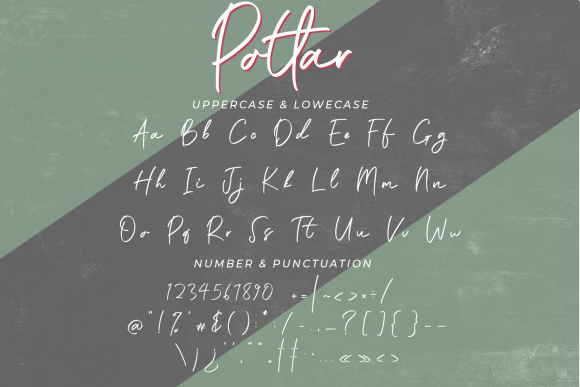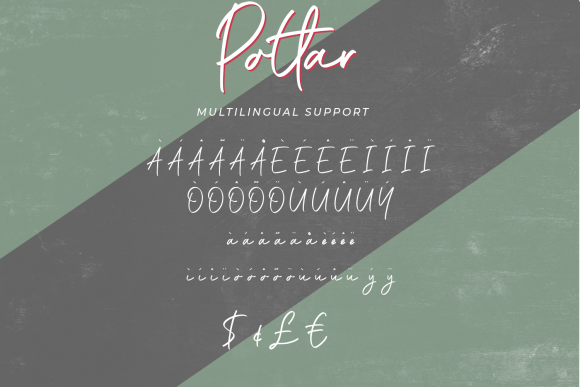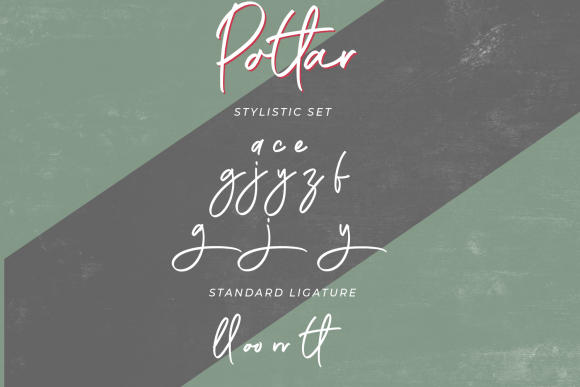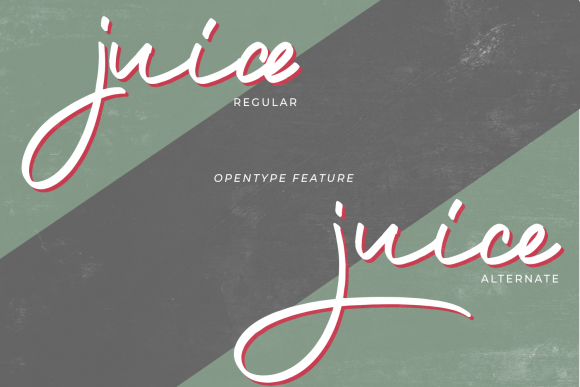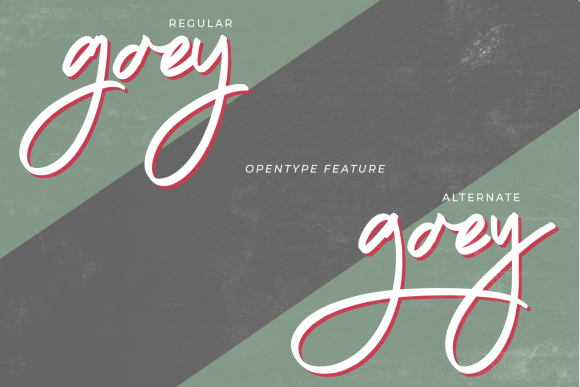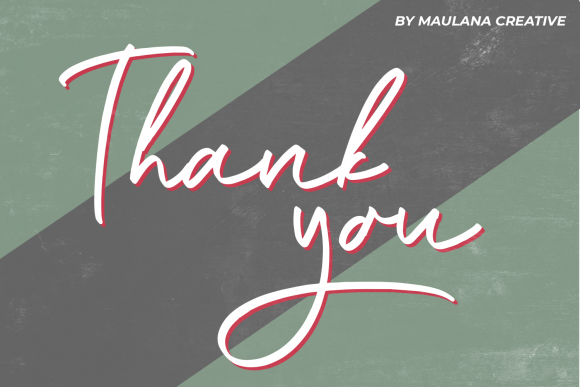
Introduction to Potlar Font
Potlar is a sweet, all round and flexible handwritten font.
Fun and flowing, this font will turn each of your project ideas into real works of art Have fun with this beautiful font and explore its endless variations.
Key Features of Potlar Font
Why Choose Potlar Font?